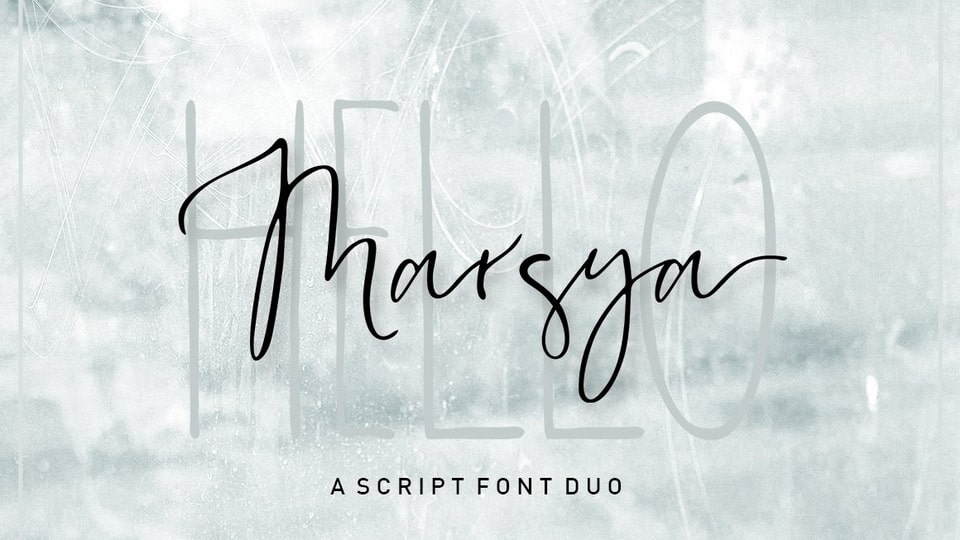
Download Marsya font, a lovely, modern calligraphic script font. Whatever the topic, Marsya will be a wonderful asset to your font library, as it has the potential to enhance any creation.